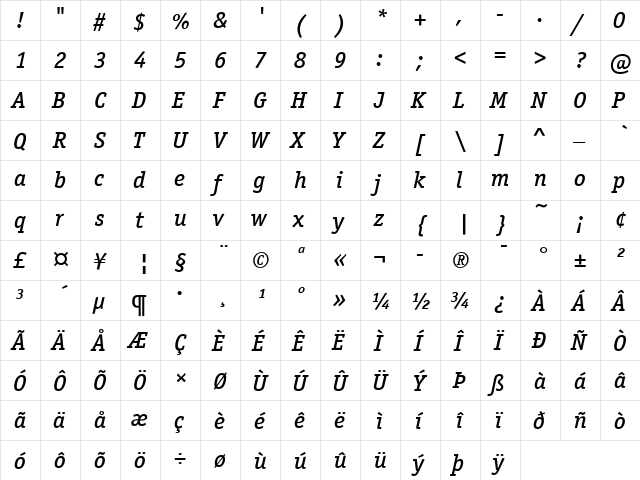
OfficinaSerITCMedium Italic
Design Context for OfficinaSerITCMedium Typeface
OfficinaSerITCMedium takes a measured approach to typography — its balanced proportions and neutral character make it a reliable workhorse for both digital and print work. The dynamic lean of this cut emphasises speed and emphasis in any layout.
Pro Tip: Use OfficinaSerITCMedium for emphasis, pull quotes, and subheadings where its slanted energy can add rhythm to the layout.